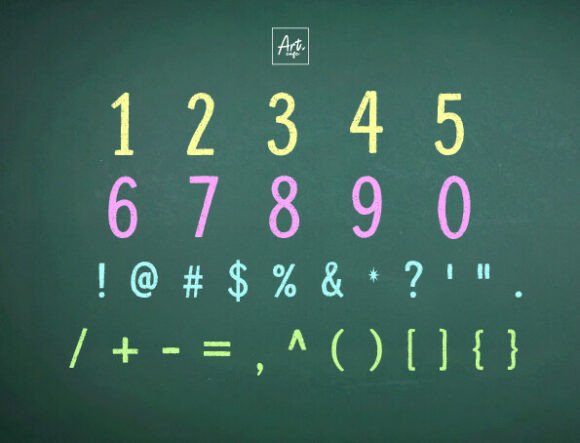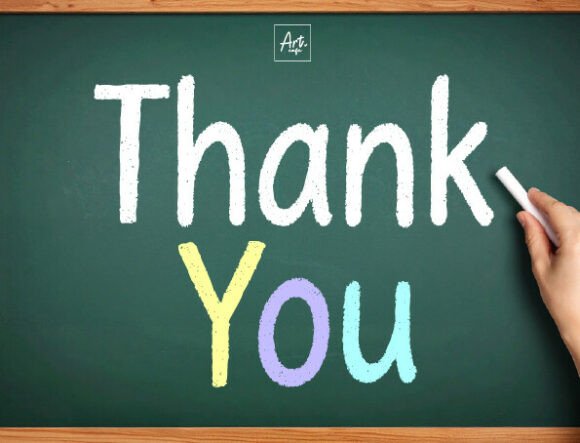
Back to School Chalk Font
Back to School Chalk is a fun and playful handwriting font that perfectly captures the charm of chalkboard writing. With its natural, hand-drawn look, this font is ideal for school-themed designs, teacher resources, educational printables, kids’ projects, and more! Each letter features a textured chalk style, making your designs feel warm, nostalgic, and creative. The colorful vibe of this font brings a cheerful and welcoming touch to any back-to-school, classroom, or learning-related project.